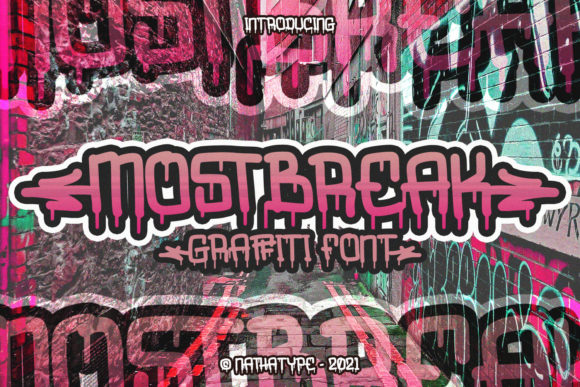
Enter Mostbreak, a street art-inspired display font that bursts with urban energy. This graffiti-styled marvel is perfect for those seeking to inject a raw, edgy aesthetic into their designs. Picture this: bold sportswear, skateboards adorned with vibrant lettering, or eye-catching jerseys that demand attention. Mostbreak is the ultimate weapon in your creative arsenal, ready to unleash a visual revolution.
When you choose Mostbreak, you're not just downloading a font; you're embracing a cultural movement. This font embodies the spirit of rebellion, the untamed energy of street art, and the boundless creativity that defies conventions. Harness the power of Mostbreak and watch your designs transform into captivating masterpieces that resonate with a youthful, urban audience.
Mostbreak's captivating characters possess a unique charm that sets them apart. Each letter brims with personality, demanding attention with its bold strokes and dynamic curves. Whether you're crafting posters that scream for attention, T-shirts that make a statement, or invitations that ooze exclusivity, Mostbreak is the font that elevates your designs to new heights.
With Mostbreak by your side, you'll effortlessly create designs that leave a lasting impression. Its bold presence commands attention, while its urban edge adds a touch of intrigue that keeps viewers captivated. Unleash your creativity and let Mostbreak guide you toward designs that resonate with the pulse of the streets.